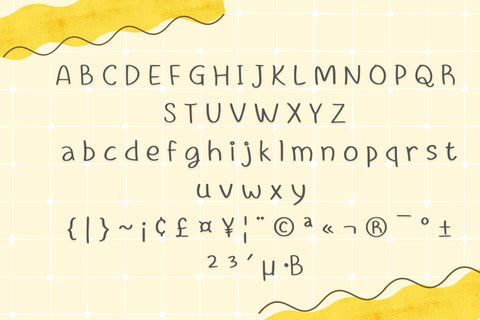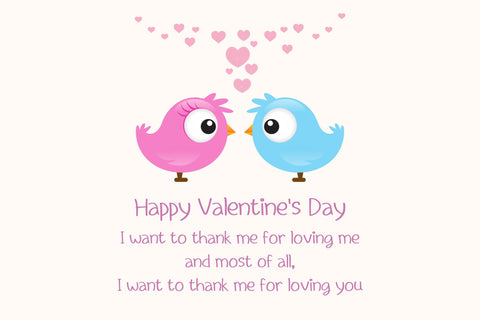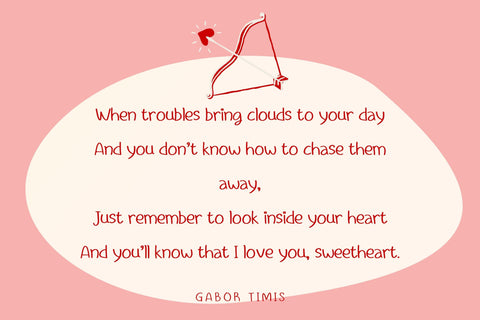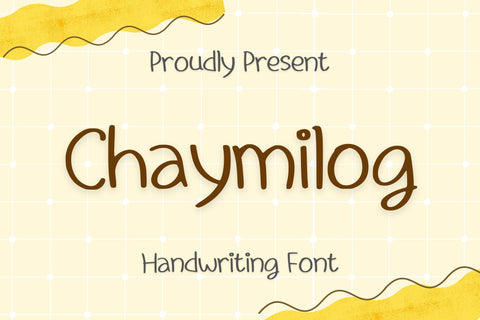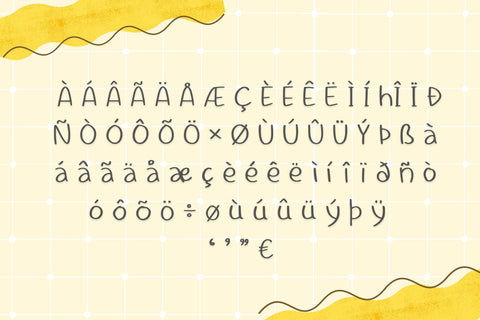
Chaymilog Font
Chaymilog is a cute and simple-lettered handwritten font perfect for all chalkboard quotes or teaching material! Its authentic look will add a realistic feel to your designs.